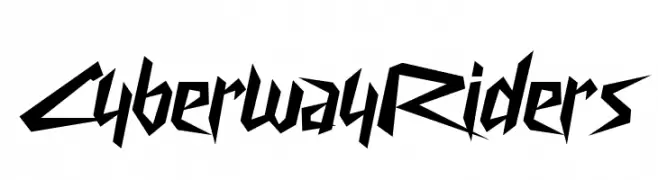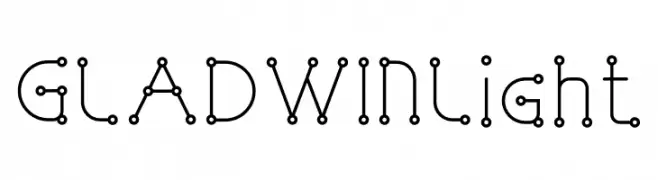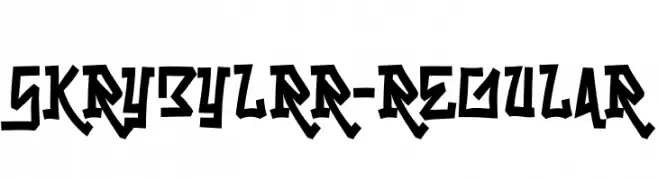
A modern, dotted line font with a futuristic and technical design.
A modern, circuit-inspired font with bold, geometric lines and circular nodes.
A whimsical decorative font with star motifs integrated into each character.
Ornamental tribal tattoo-style symbols with bold, abstract forms.
A bold, graffiti-inspired font with sharp, angular lines and a modern edge.
A playful, ghost-themed decorative font with bold, fluid characters.
A bold, angular font with high contrast and a dynamic, edgy style.
A mystical, rune-like font with sharp, angular characters.
A bold, angular font with sharp edges and a futuristic style.
A decorative font with characters resembling twigs and leaves, offering a natural and whimsical style.